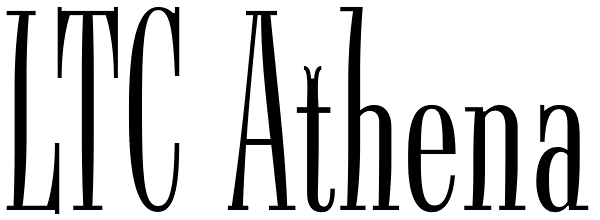
LTC Athena
LTC Athena brings a somewhat “lost” hot-metal typeface back from obscurity into digital Opentype format. In fall 2012, printing historian Rich Hopkins contacted P22 type foundry regarding some inked type drawings he had just uncovered from his...